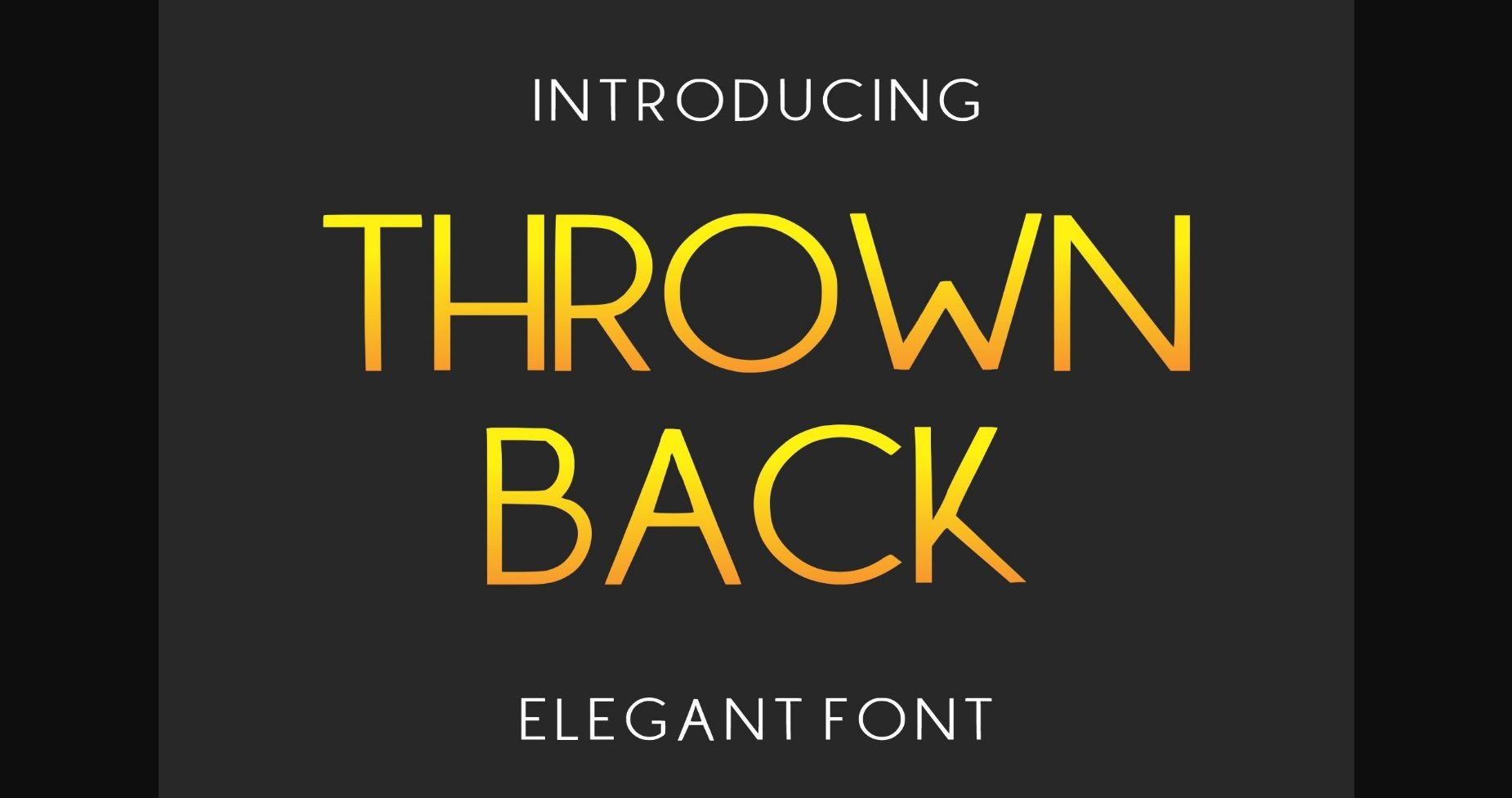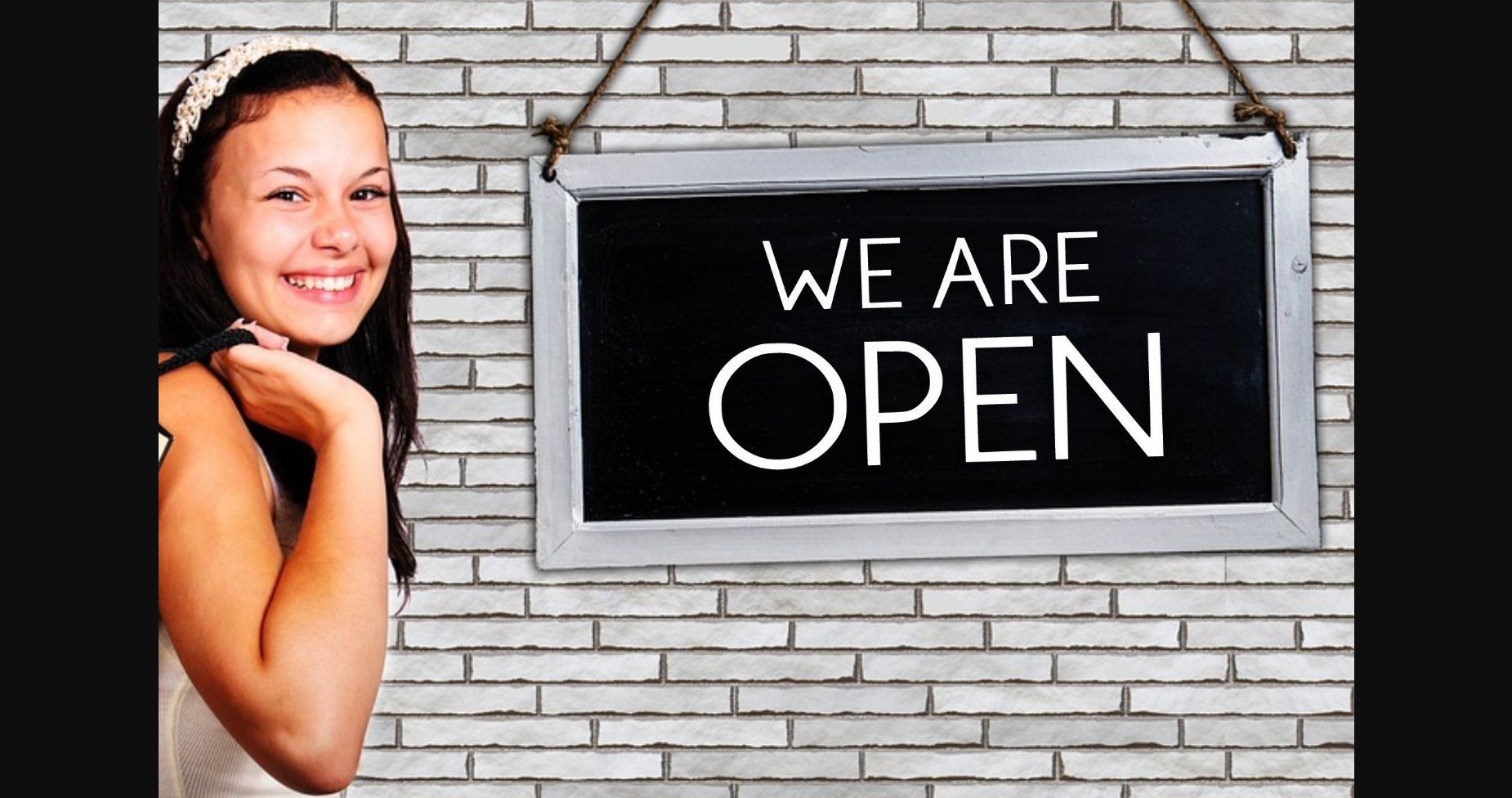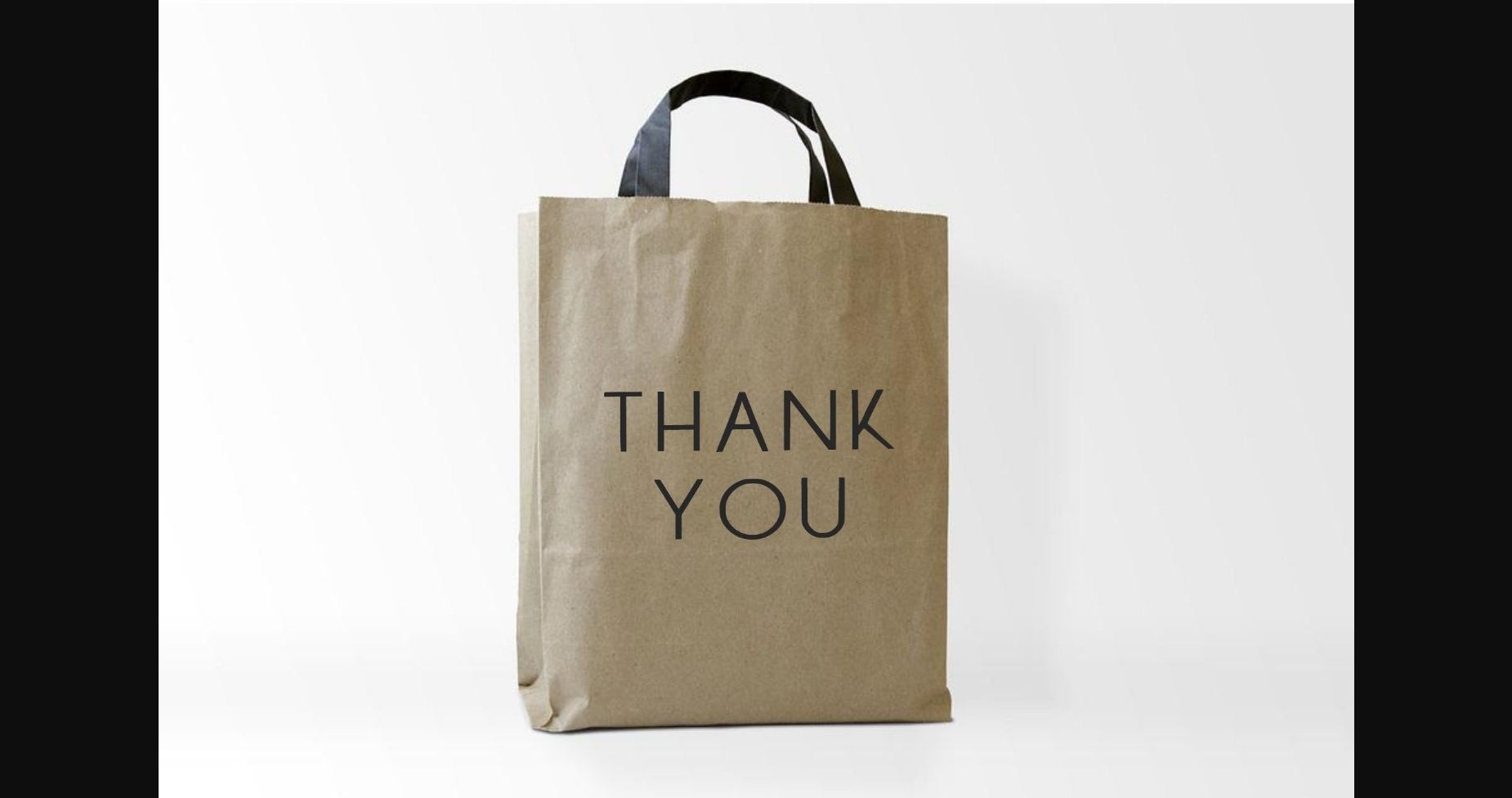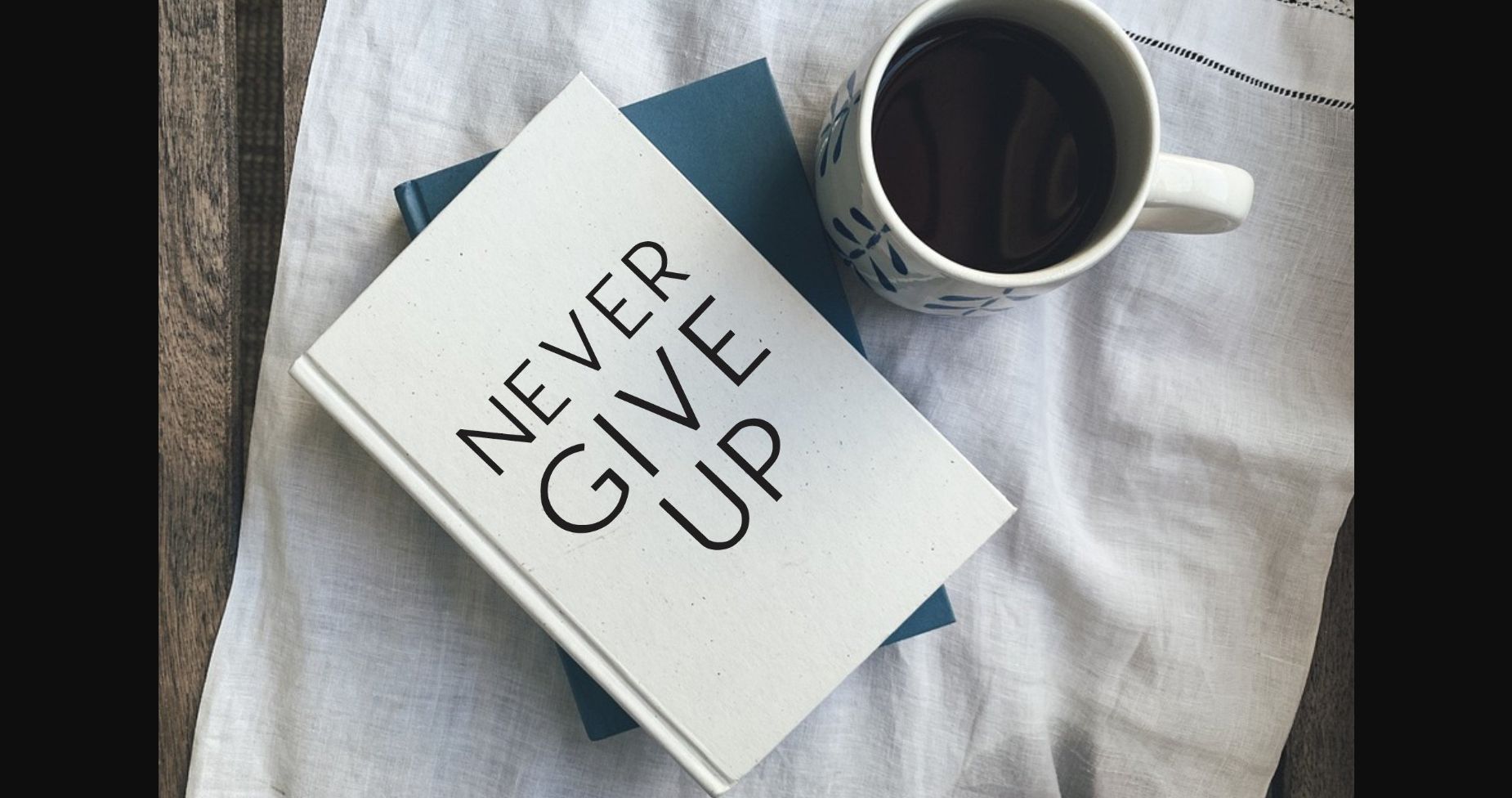
Thrown Back is a minimal, neat, and elegant sans serif font that can be easily used on various projects. Add it to your creative ideas, and see how it makes them stand out!